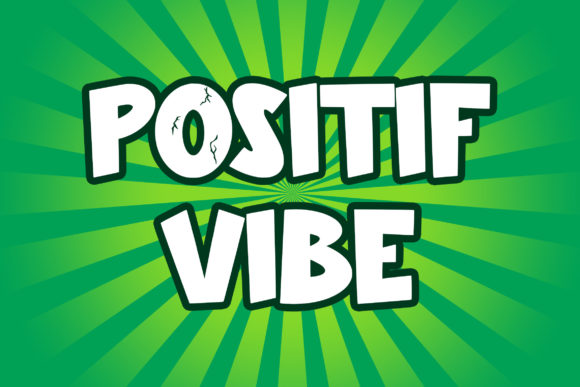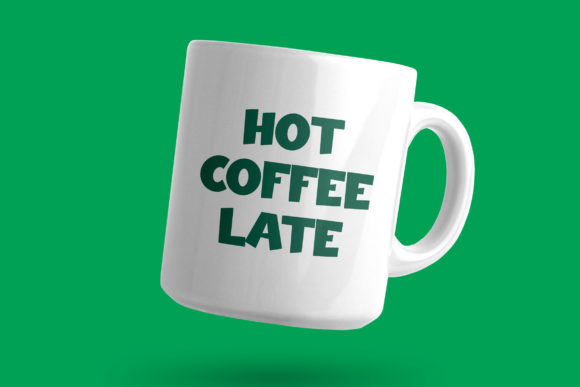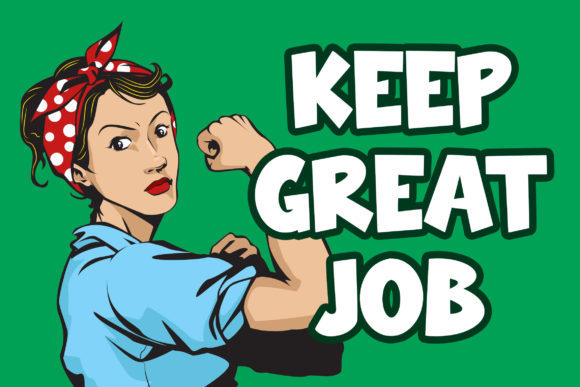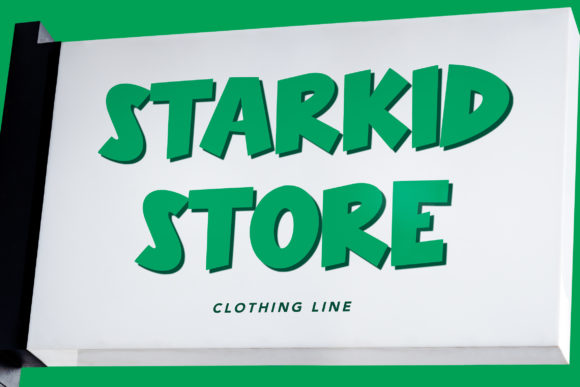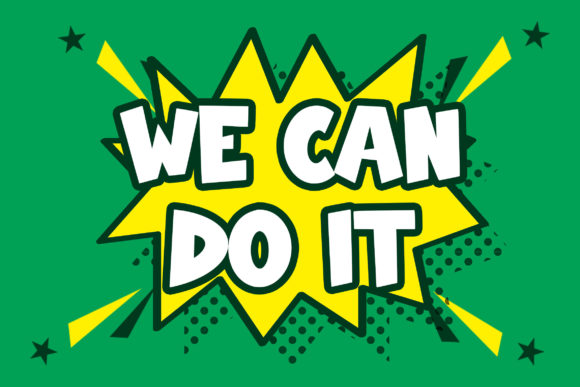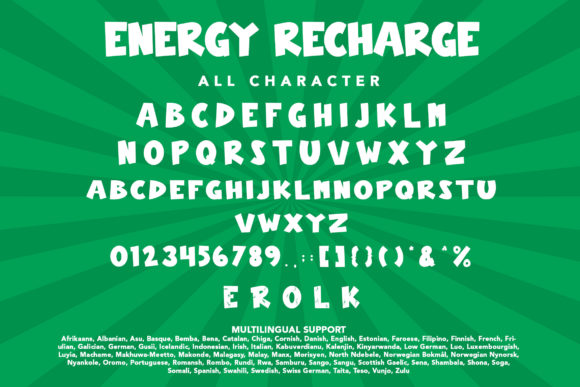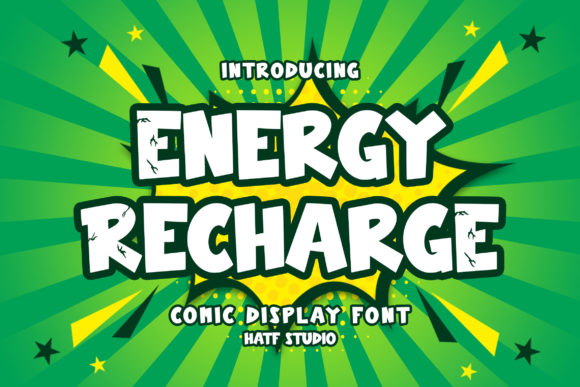
Introducing Energy Recharge Font: The Ultimate Comic Display Font for Bold Designs
In the world of design, typography plays a crucial role in conveying messages and capturing attention. When it comes to creating bold and eye-catching designs, a distinctive font can make all the difference. This is where Energy Recharge Font comes in – a comic display font that is perfect for a wide range of design projects. In this article, we’ll explore the features and benefits of Energy Recharge Font, and how it can elevate your branding, advertising, and design projects.
What is Energy Recharge Font?
Energy Recharge Font is a comic display font that boasts distinctive characters, making it ideal for designs that require a bold and playful touch. Its unique style is perfect for creating attention-grabbing headlines, logos, and titles that leave a lasting impression. Whether you’re working on branding projects, logos, wedding designs, media posts, advertisements, product packaging, product designs, labels, photography, watermarks, invitations, stationery, or any project that needs bold typography, Energy Recharge Font is the perfect choice.
Key Features of Energy Recharge Font
- Distinctive Characters: Energy Recharge Font features unique and quirky characters that add a touch of personality to your designs.
- Comic Display Style: Its comic display style makes it perfect for creating bold and eye-catching headlines and titles.
- Bold Typography: Energy Recharge Font is designed to make a statement, making it ideal for designs that require bold typography.
- Versatile: This font is suitable for a wide range of design projects, from branding and advertising to wedding designs and product packaging.
Benefits of Using Energy Recharge Font
So, why choose Energy Recharge Font for your design projects? Here are just a few benefits of using this amazing font:
- Adds Personality to Your Designs: Energy Recharge Font’s unique style adds a touch of personality to your designs, making them stand out from the crowd.
- Creates a Lasting Impression: The bold and eye-catching style of Energy Recharge Font ensures that your designs leave a lasting impression on your audience.
- Saves Time: With Energy Recharge Font, you can create professional-looking designs in no time, saving you time and effort.
- Perfect for Branding: Energy Recharge Font is ideal for branding projects, as it helps to create a consistent and recognizable visual identity.
How to Use Energy Recharge Font in Your Designs
Using Energy Recharge Font in your designs is easy. Here are a few tips to get you started:
- Pair it with Other Fonts: Energy Recharge Font pairs well with other fonts, making it easy to create visually appealing designs.
- Experiment with Colors: Try out different colors and combinations to find the perfect look for your design.
- Use it for Headlines: Energy Recharge Font is perfect for creating bold and eye-catching headlines that grab attention.
- Add Texture and Patterns: Add texture and patterns to your designs to give them an extra layer of depth and interest.
Energy Recharge Font is a versatile and bold comic display font that is perfect for a wide range of design projects. Its distinctive characters and bold typography make it ideal for creating attention-grabbing designs that leave a lasting impression. Whether you’re a designer, crafters, or simply someone who loves to create, Energy Recharge Font is a must-have font that will take your designs to the next level.